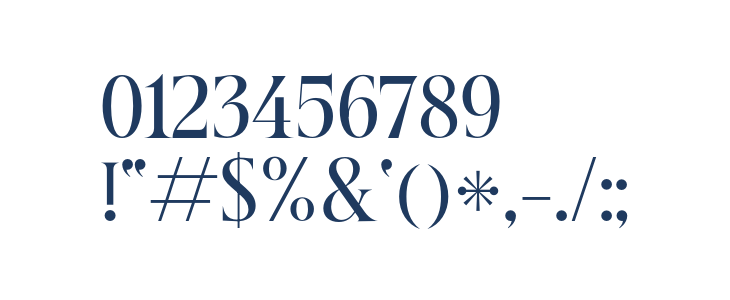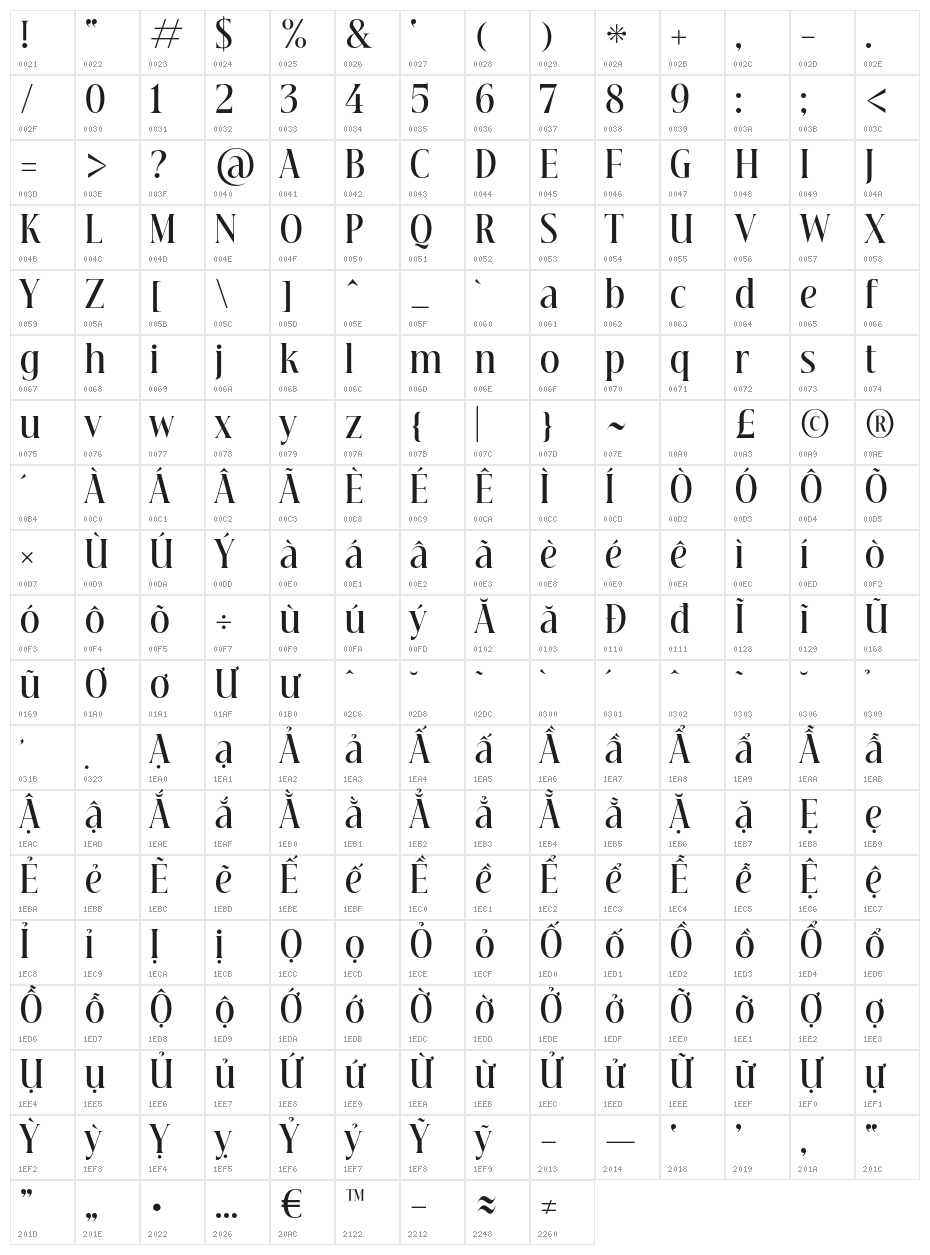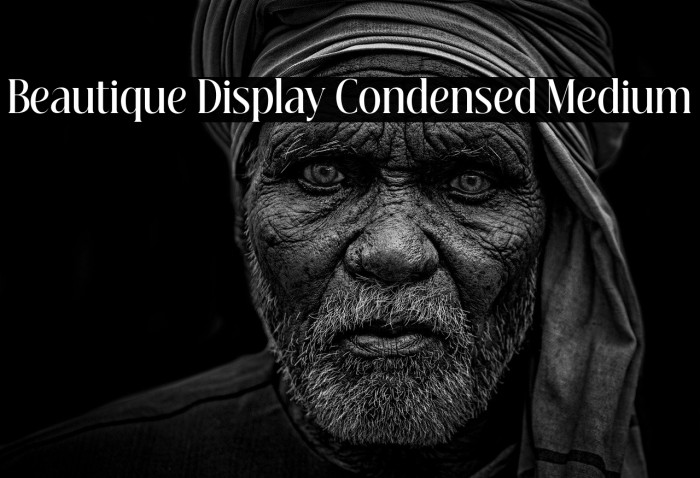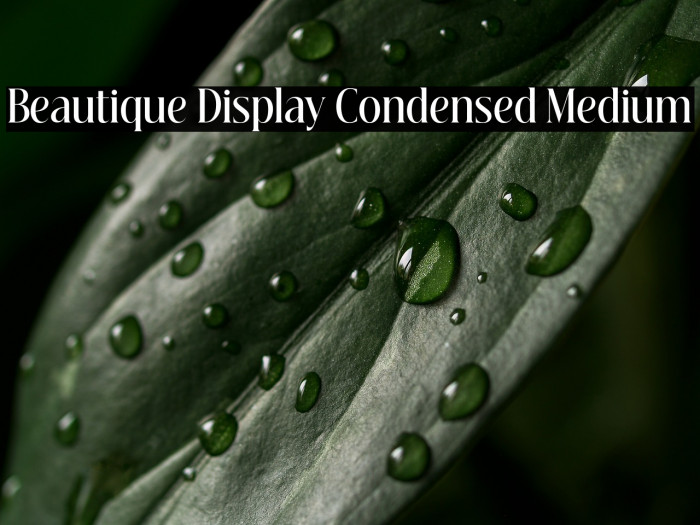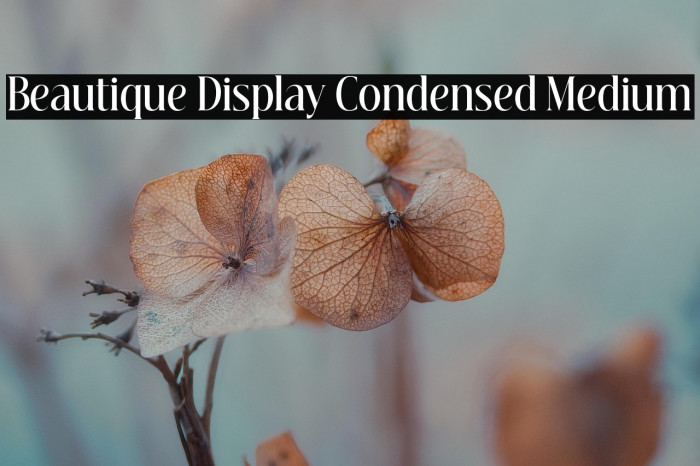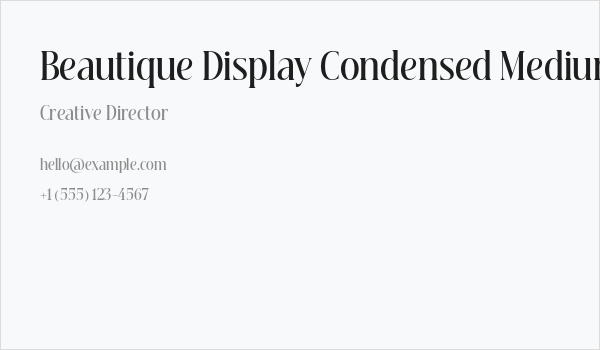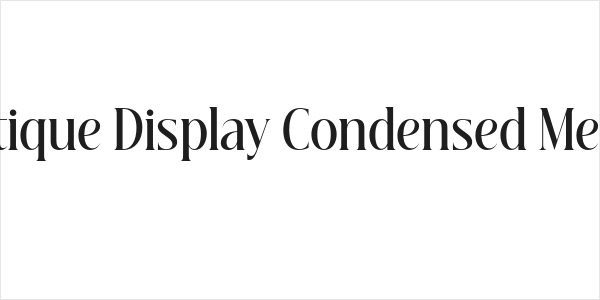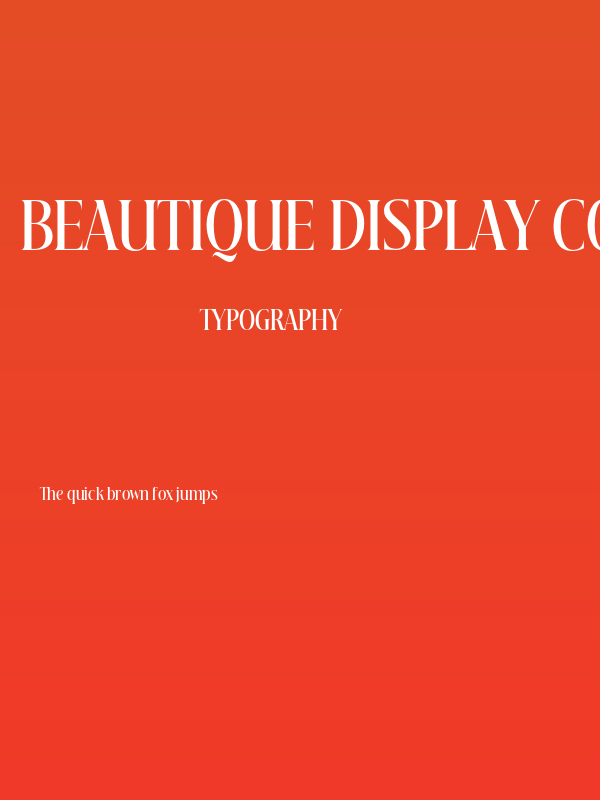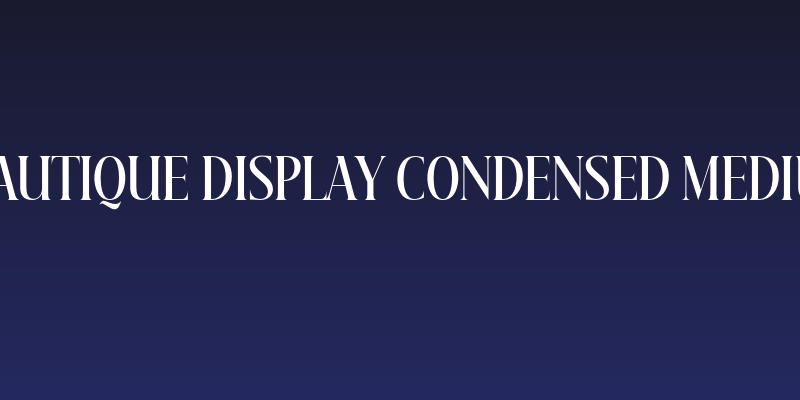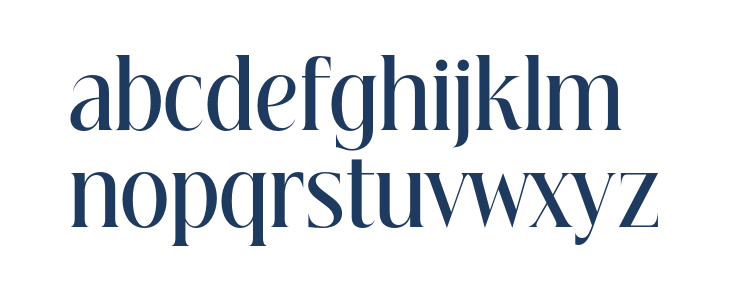
Beautique Display Condensed Medium Font
Beautique Display Condensed Medium Description
This font exudes elegance and sophistication with its tall, slender letterforms and high contrast between thick and thin strokes. The condensed nature of the characters gives it a sleek and modern appearance, making it ideal for creating a strong visual impact. The uppercase letters are particularly striking, with their elongated forms and sharp serifs, while the lowercase letters maintain a graceful flow. The numerals are well-proportioned, and the special characters are designed to complement the overall aesthetic. This font is perfect for projects that require a touch of class and refinement.
| Use Case | Headlines, Logos, Editorial design |
| Proposed Projects | Ideal for luxury branding, fashion magazines, high-end product packaging, and elegant invitations. |